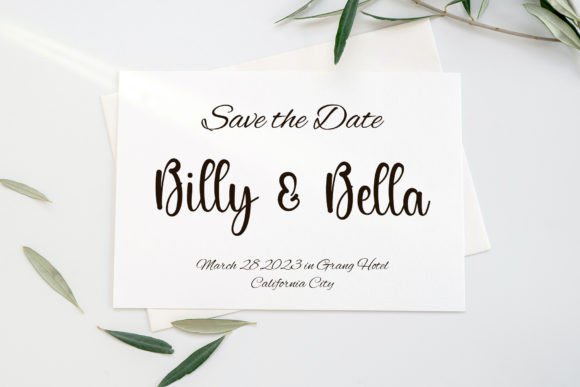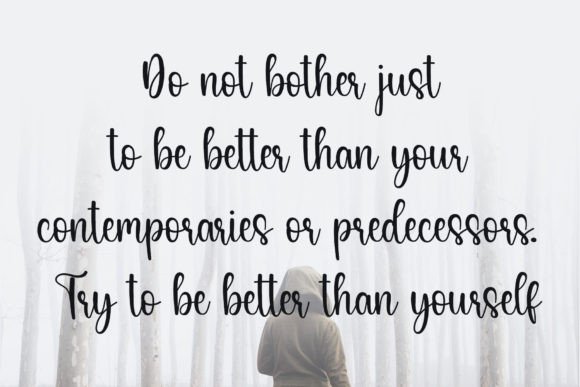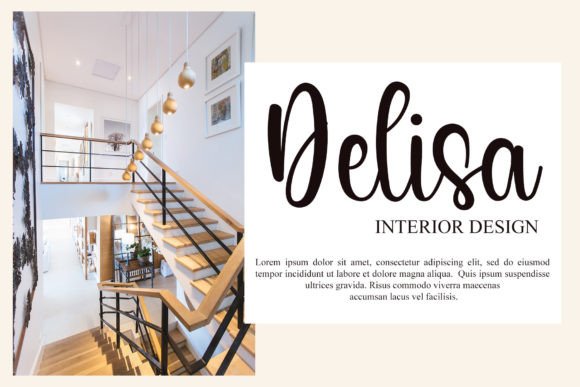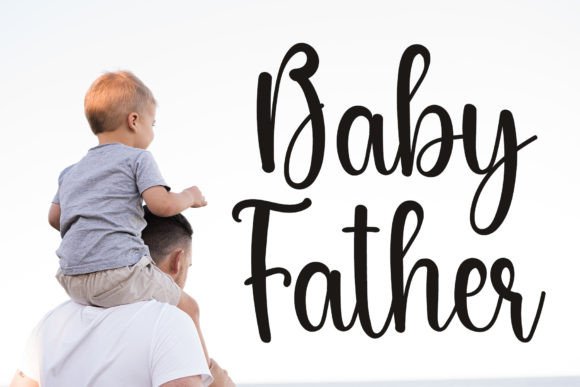
Introduction to Qoutes Font
Remember the moment you first fell in love with a font? Maybe it was a quirky handwritten script or a sleek sans-serif that perfectly captured the essence of your creative project. For me, it was the first time I laid eyes on the Qoutes Font – a charming, high-quality font that combines elegant typography with adorable heart illustrations.
As a designer, I can attest to the value of having a reliable design resource like Qoutes Font in your toolkit. With its transparent background and free download option, it’s the perfect addition to any creative project. Whether you’re working on a magazine spread, crafting personalized holiday decorations, or simply looking for a unique way to display your initials, Qoutes Font is an excellent choice.
What sets Qoutes Font apart from other fonts is its versatility and charm. With a wide range of heart illustrations to choose from, you can add a personal touch to any design project, making it an ideal resource for designers looking to add a little extra love to their work.
Key Features of Qoutes Font
- High-quality typography with elegant, cursive script design
- Transparent background, allowing for easy customization and layering in design projects
- Includes multiple font styles, including regular and bold, for added versatility in design
Honest Review: Qoutes Font
As a designer, I’m always on the lookout for high-quality design resources that can elevate my creative projects. Recently, I came across Qoutes Font, and I’m excited to share my honest review.
- ✨ High-quality font with beautiful, handwritten script style
- ✨ Transparent background makes it easy to use on any design project
- ✨ Works well for titles, headings, and body text
- ⚠️ Limited character set, which may not be ideal for long blocks of text
- ⚠️ May not be suitable for professional printing or high-resolution designs
Overall, I’m impressed with Qoutes Font’s aesthetic and ease of use. While it may have some limitations, it’s a great addition to any designer’s toolkit. Whether you’re working on a personal project or a commercial design, Qoutes Font is definitely worth considering.
Tips for Getting the Most Out of Qoutes Font
To get the most out of Qoutes Font, be sure to use it in conjunction with a high-quality image or design element. A transparent background can also help the font stand out in your design. Additionally, consider using Qoutes Font in a creative project that requires a unique and eye-catching font style.
Qoutes Font is a versatile design resource that can be used in a variety of creative projects, including social media graphics, flyers, posters, and more. Its unique style makes it perfect for use in design projects that require a high level of creativity and visual interest.